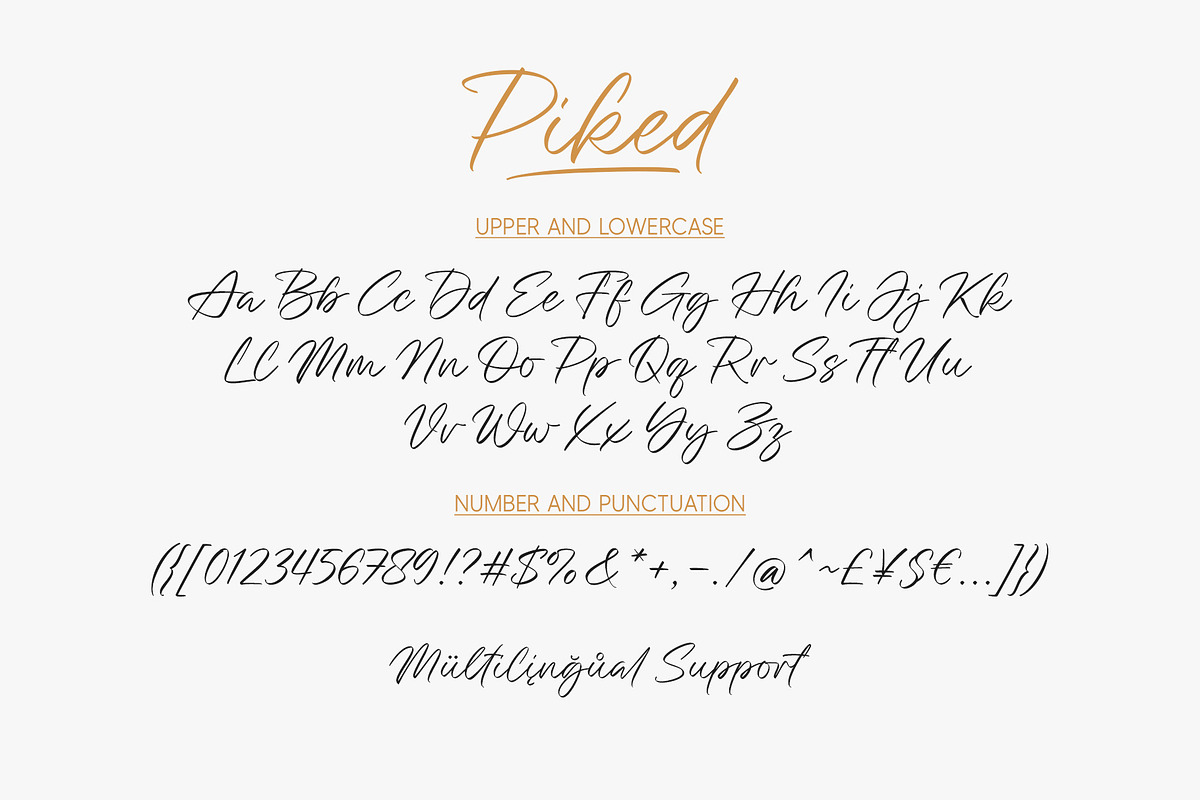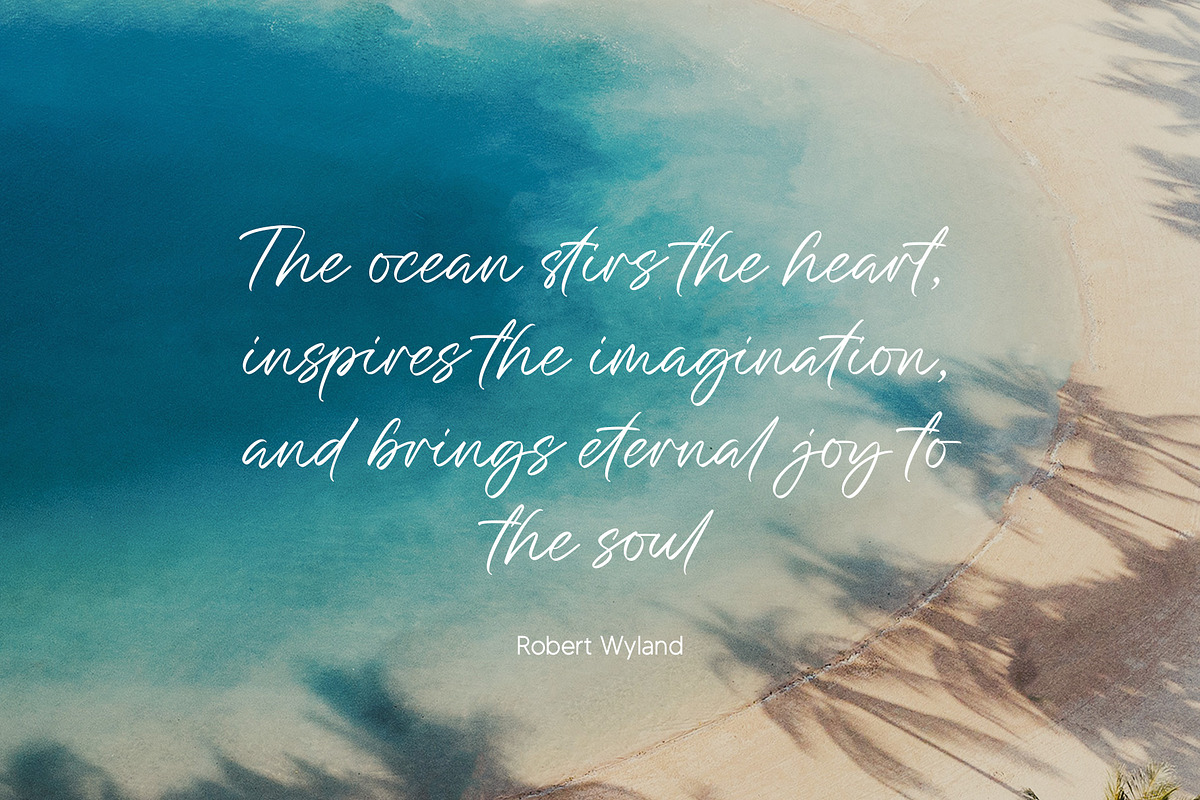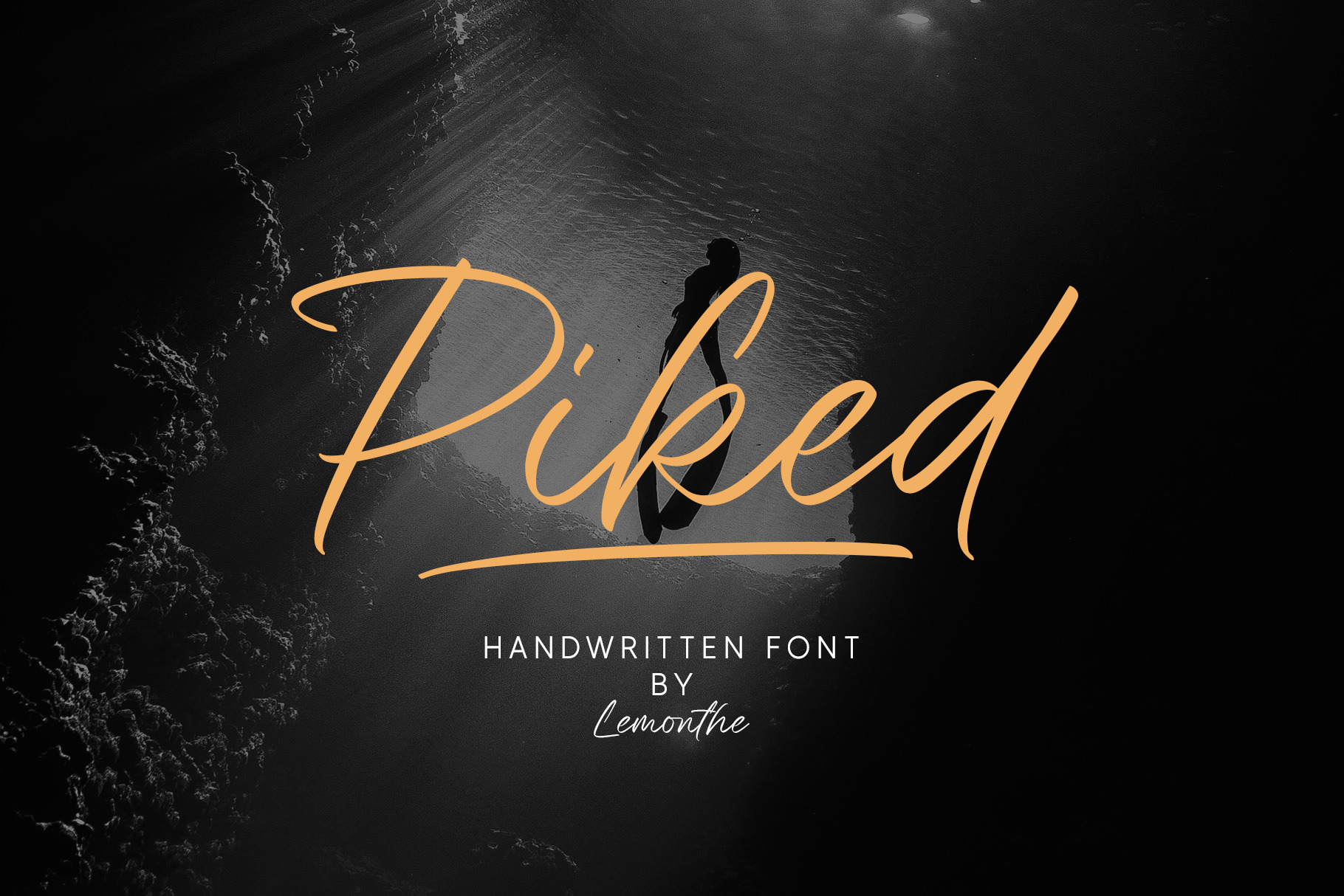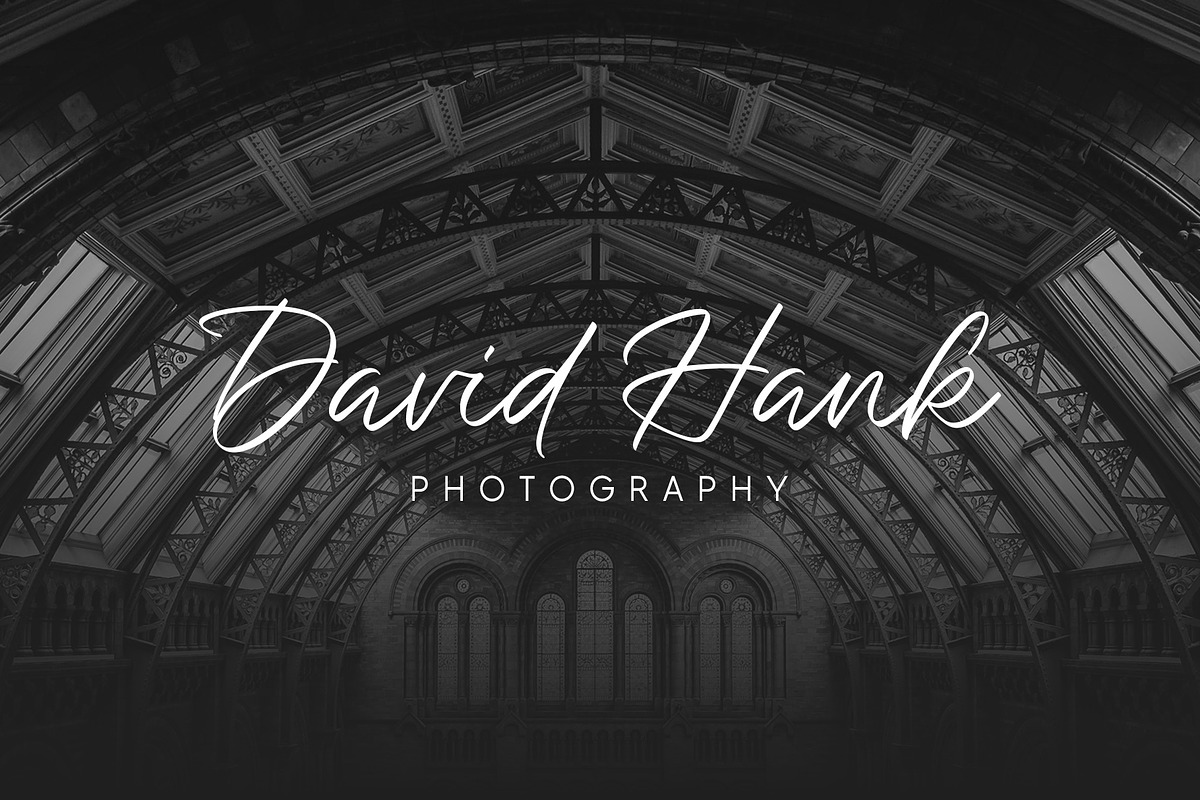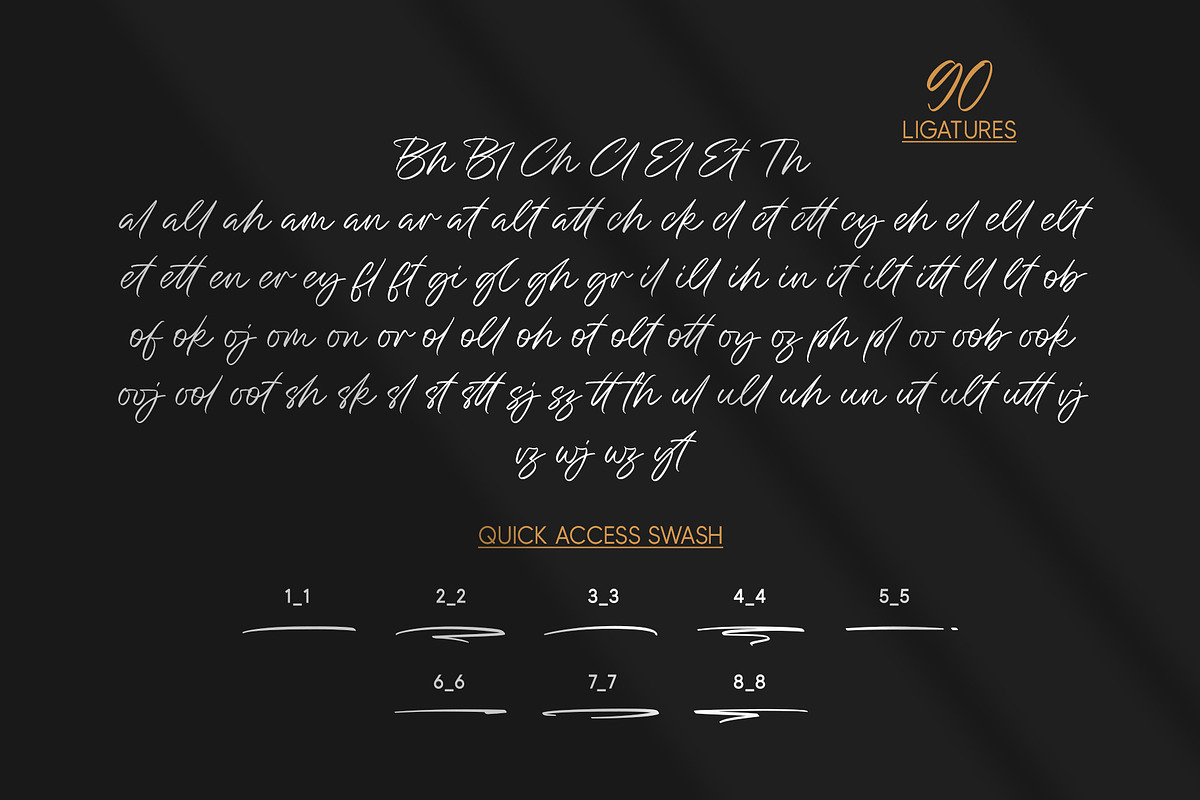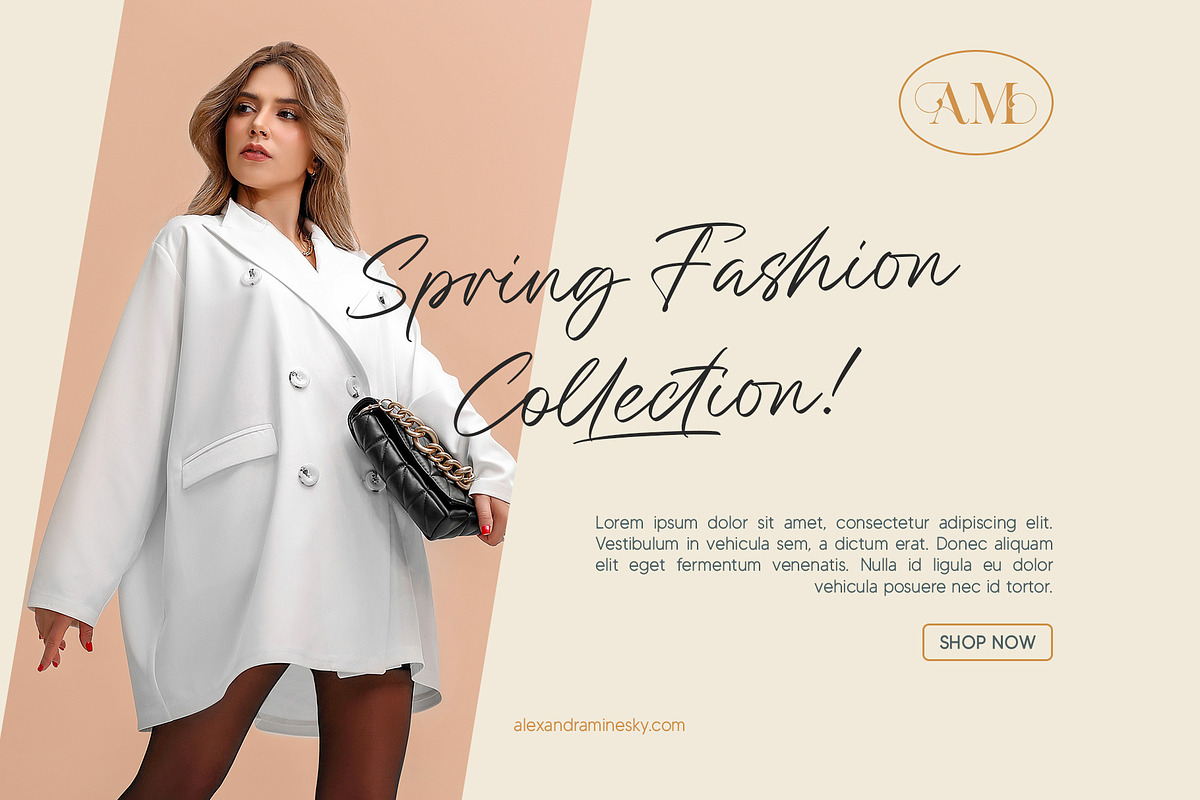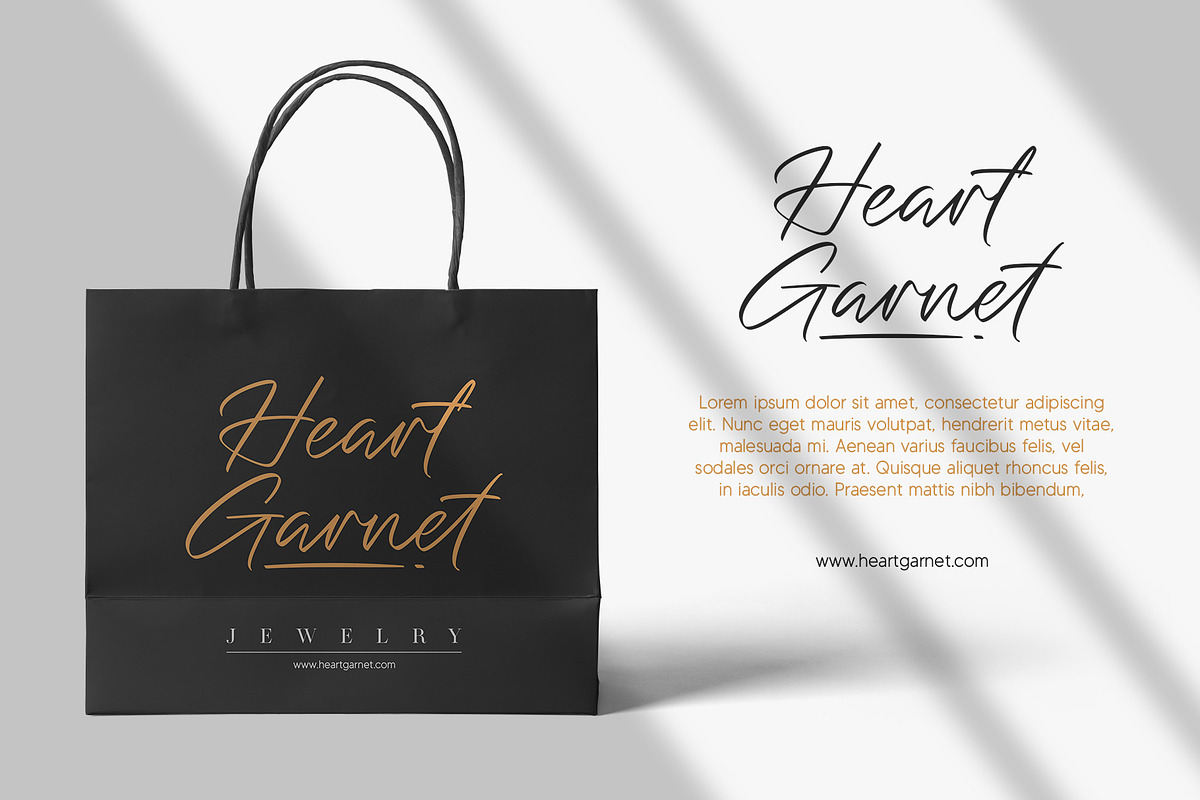
Piked | Handwritten Font
Piked is an elegant handwritten font, featuring 90 ligatures and swashes for a truly unique and personalized look. This font showcases a beautiful script style that captures the beauty and charm of hand-drawn calligraphy, ideal for adding a personal touch to any design project. It is perfect for many different projects such as logos & branding, invitation, stationery, signature, product designs, labels, photography, and much more!
Quick access swash
- Add number (1-8) + underscore + number (1-8). Ex: 1_1, 2_2, 3_3, 4_4, 5_5, 6_6, 7_7, 8_8